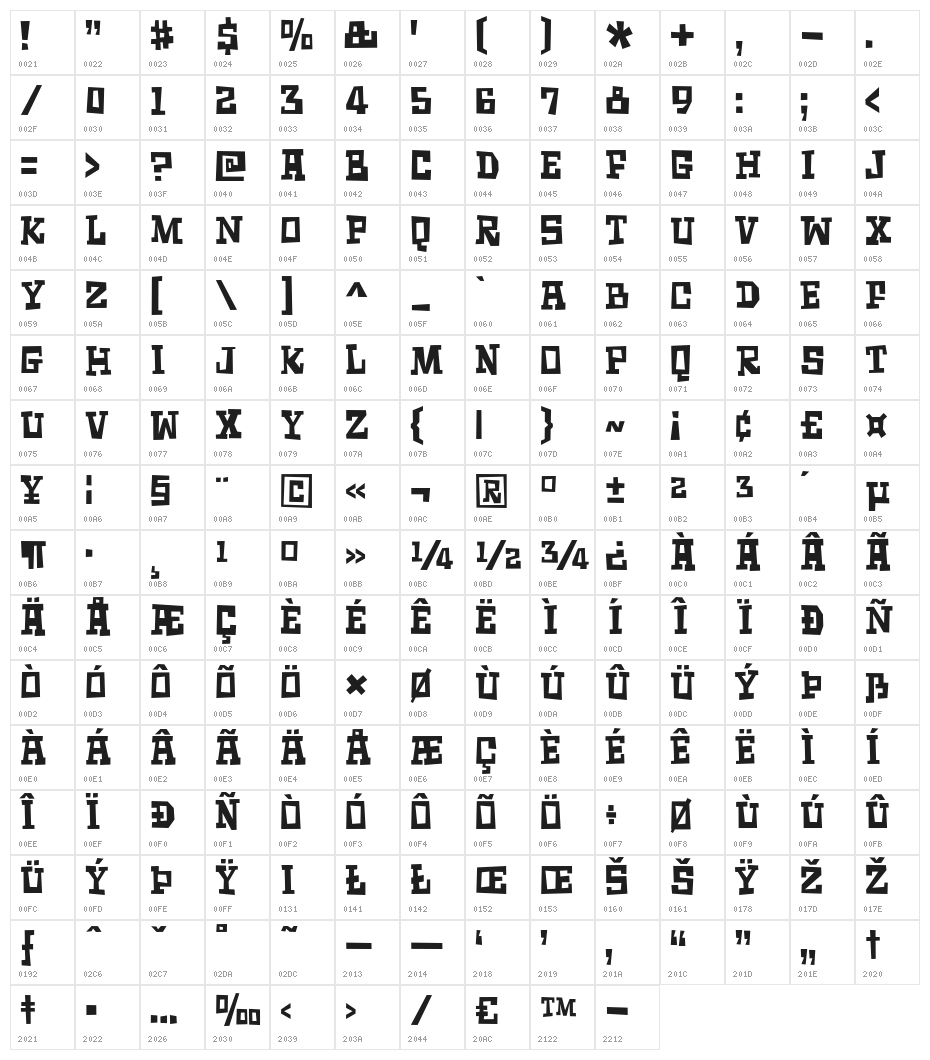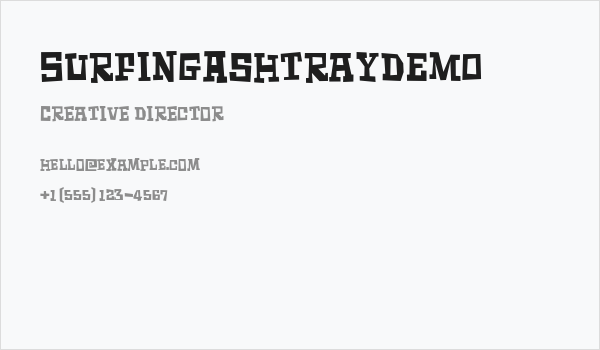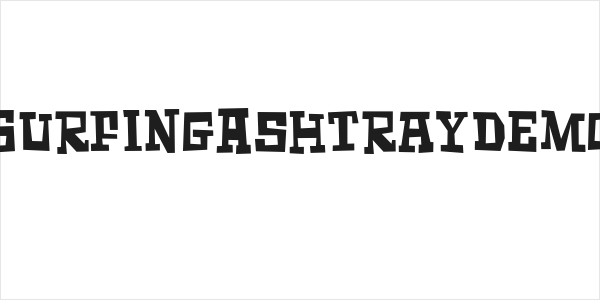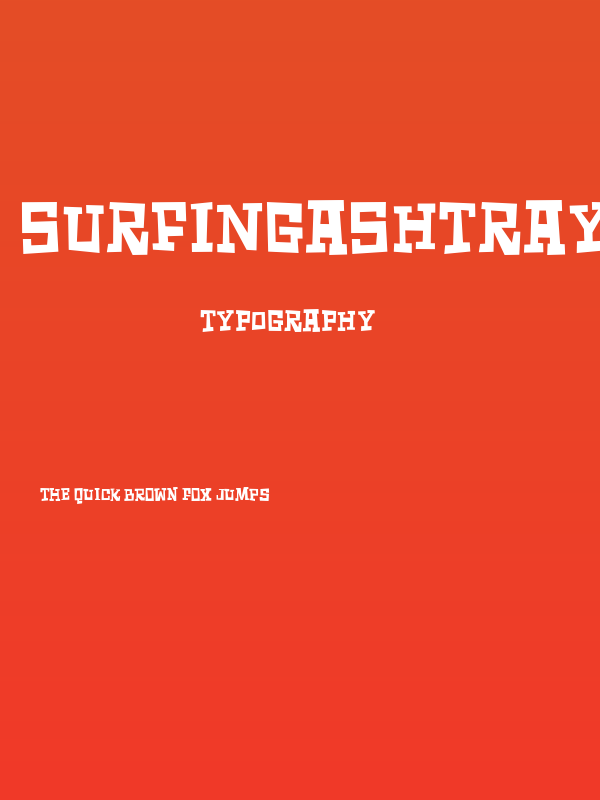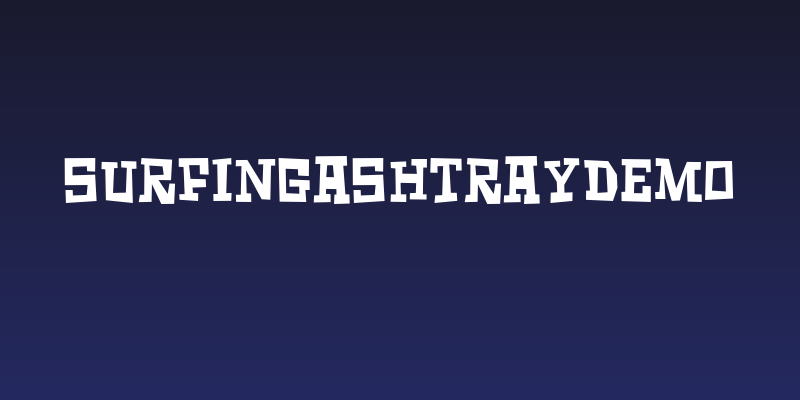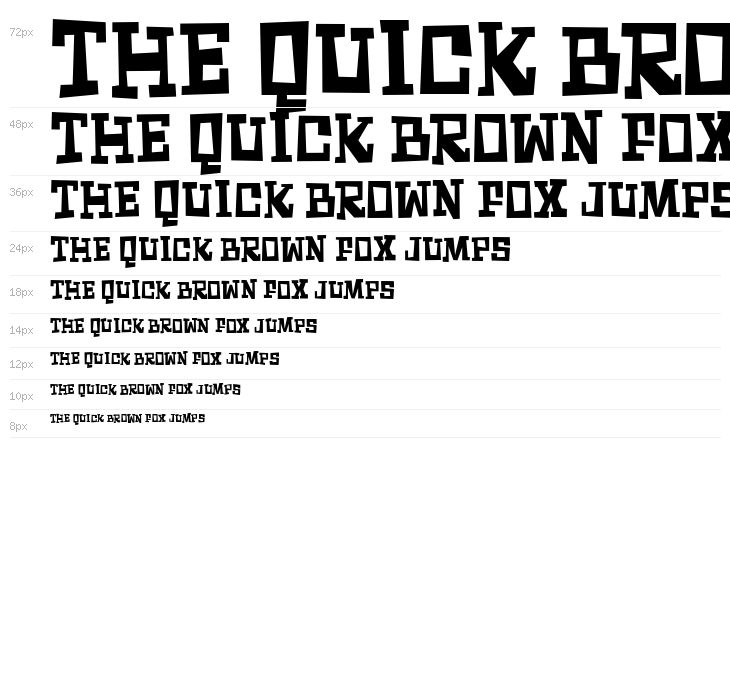
SurfingAshtrayDEMO Font
SurfingAshtrayDEMO Description
This font features a bold and dynamic design with a distinctively playful and edgy appearance. The characters are blocky and angular, with exaggerated serifs and a slightly uneven baseline that adds a sense of movement and energy. The uppercase and lowercase letters maintain a consistent style, while the numbers and special characters are crafted to match the boldness of the alphabet. The font's unique style makes it stand out, offering a strong visual impact that is both modern and slightly retro, reminiscent of vintage poster designs.
Overall StyleModern, Vintage
Proposed ProjectsIdeal for use in posters, logos, branding projects, and any design requiring a strong, eye-catching typeface.